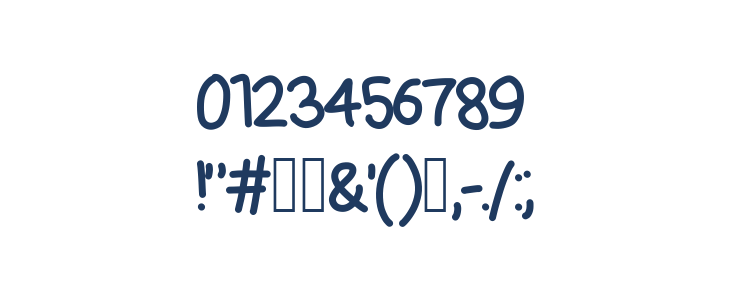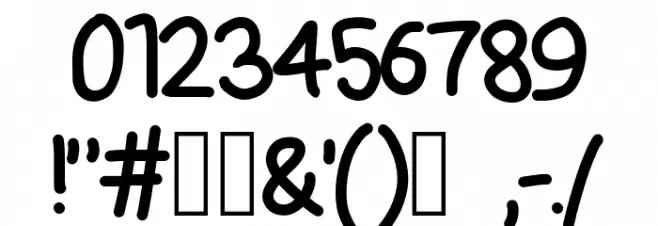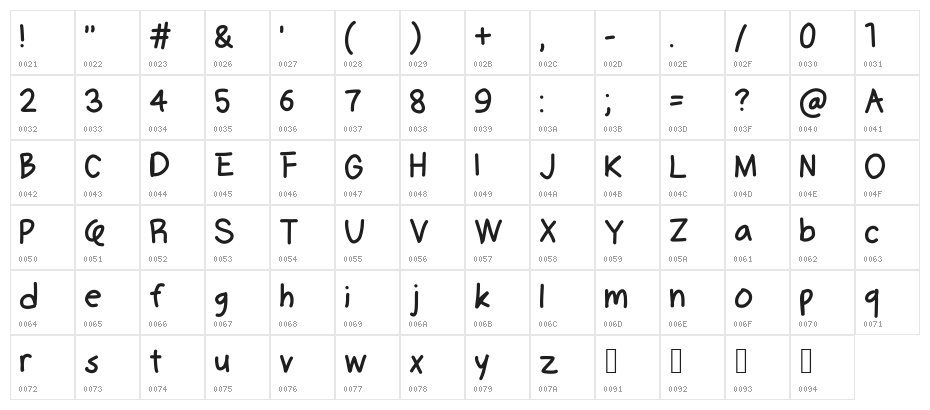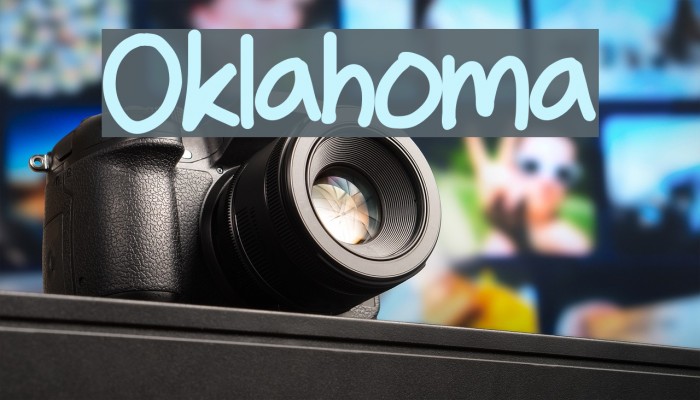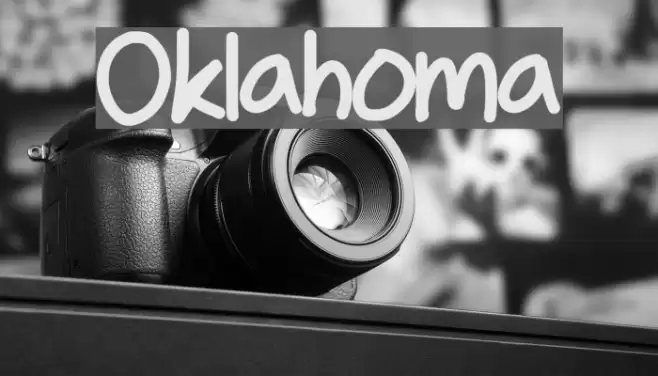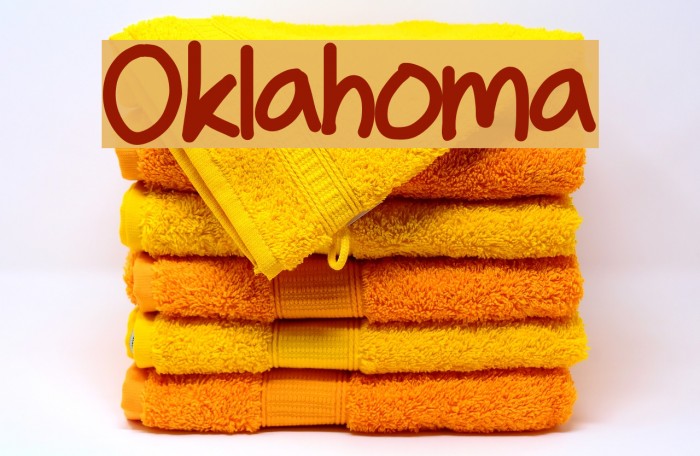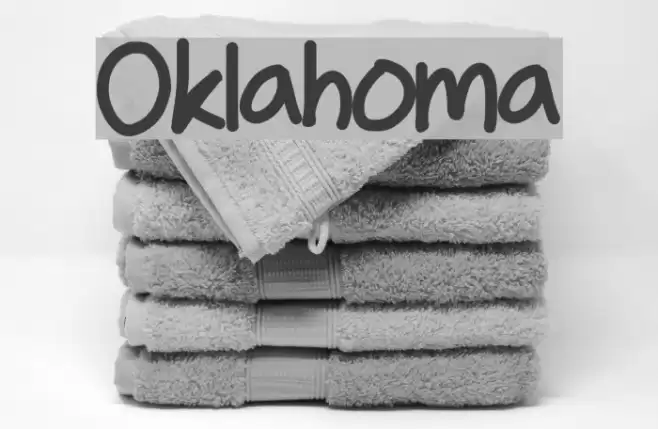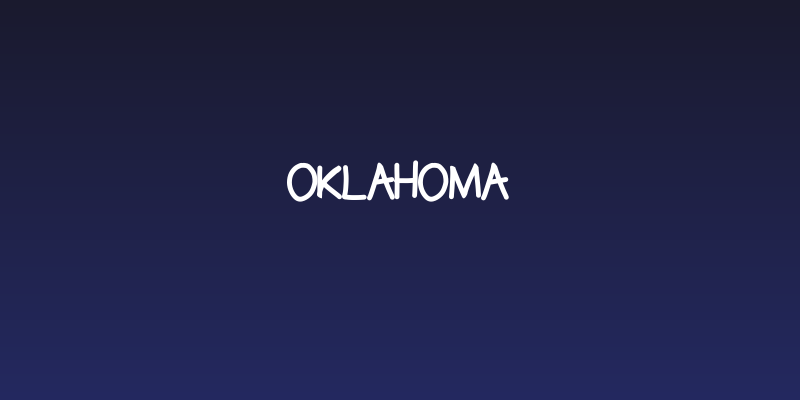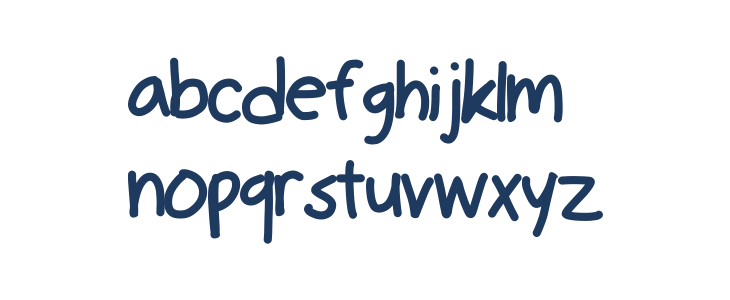
Oklahoma Font
Oklahoma Description
This font features a playful and informal handwritten style, characterized by its rounded and slightly irregular letterforms. The uppercase and lowercase letters maintain a consistent flow, with a casual and friendly appearance. The numbers and special characters follow the same style, ensuring a cohesive look across all glyphs. The strokes are consistent in width, providing a uniform appearance without significant contrast. This font is ideal for projects that require a personal touch, such as invitations, greeting cards, or children's book covers.